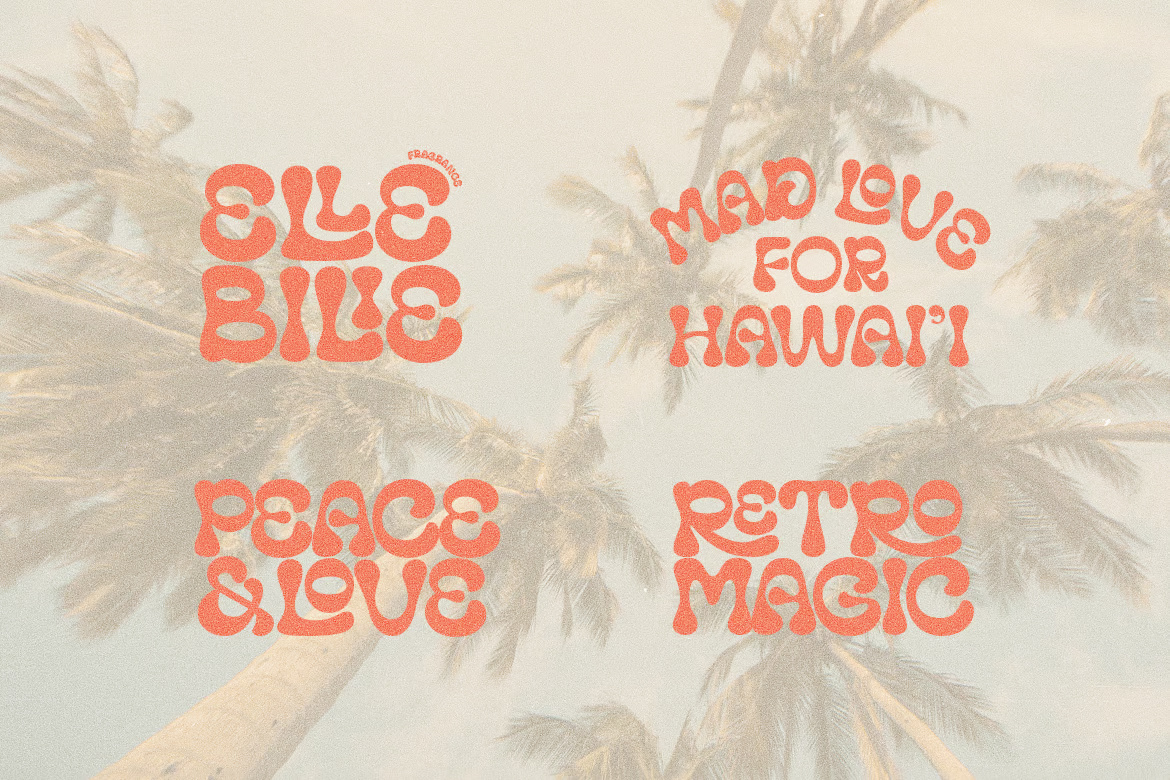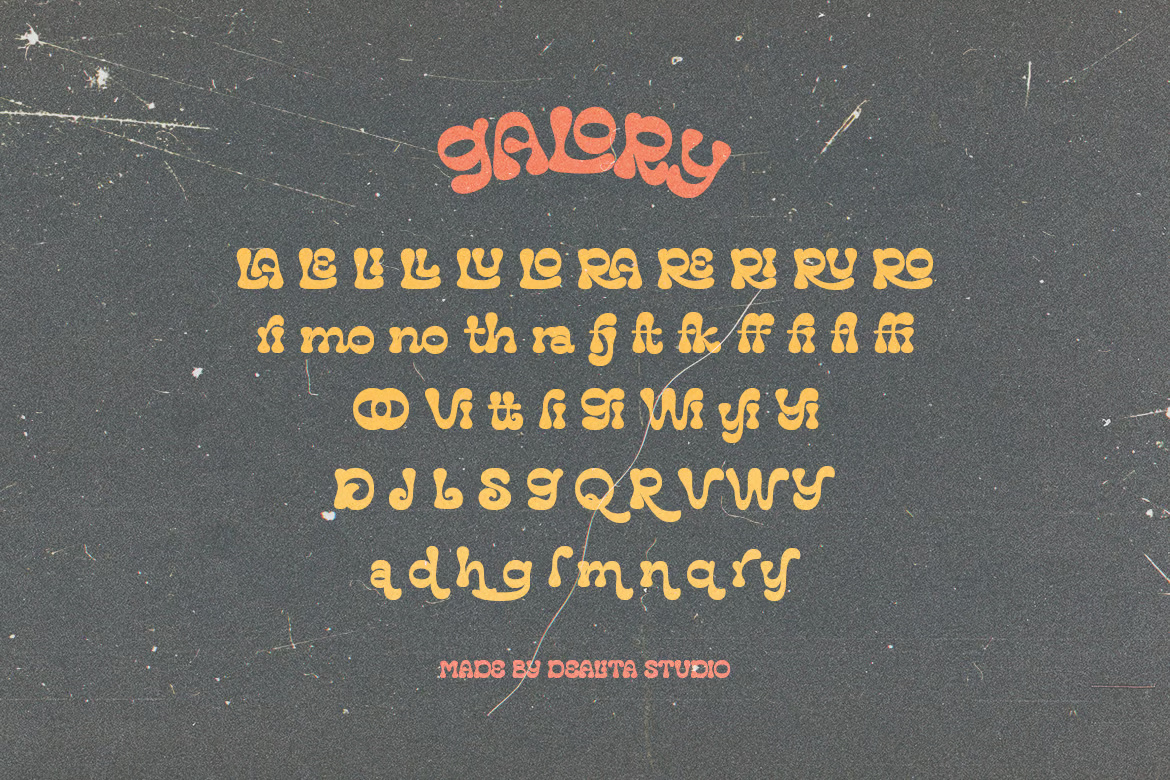
Galory Display Retro
Galory is a playful typeface that captures the vibrant essence of the ’90s era. Immerse yourself in its retro charm, perfect for adding a nostalgic touch to your designs. This font is ideal for logos, invitations, labels, magazines, books, greeting and wedding cards, packaging, fashion, makeup, stationery, novels, and various advertising purposes.